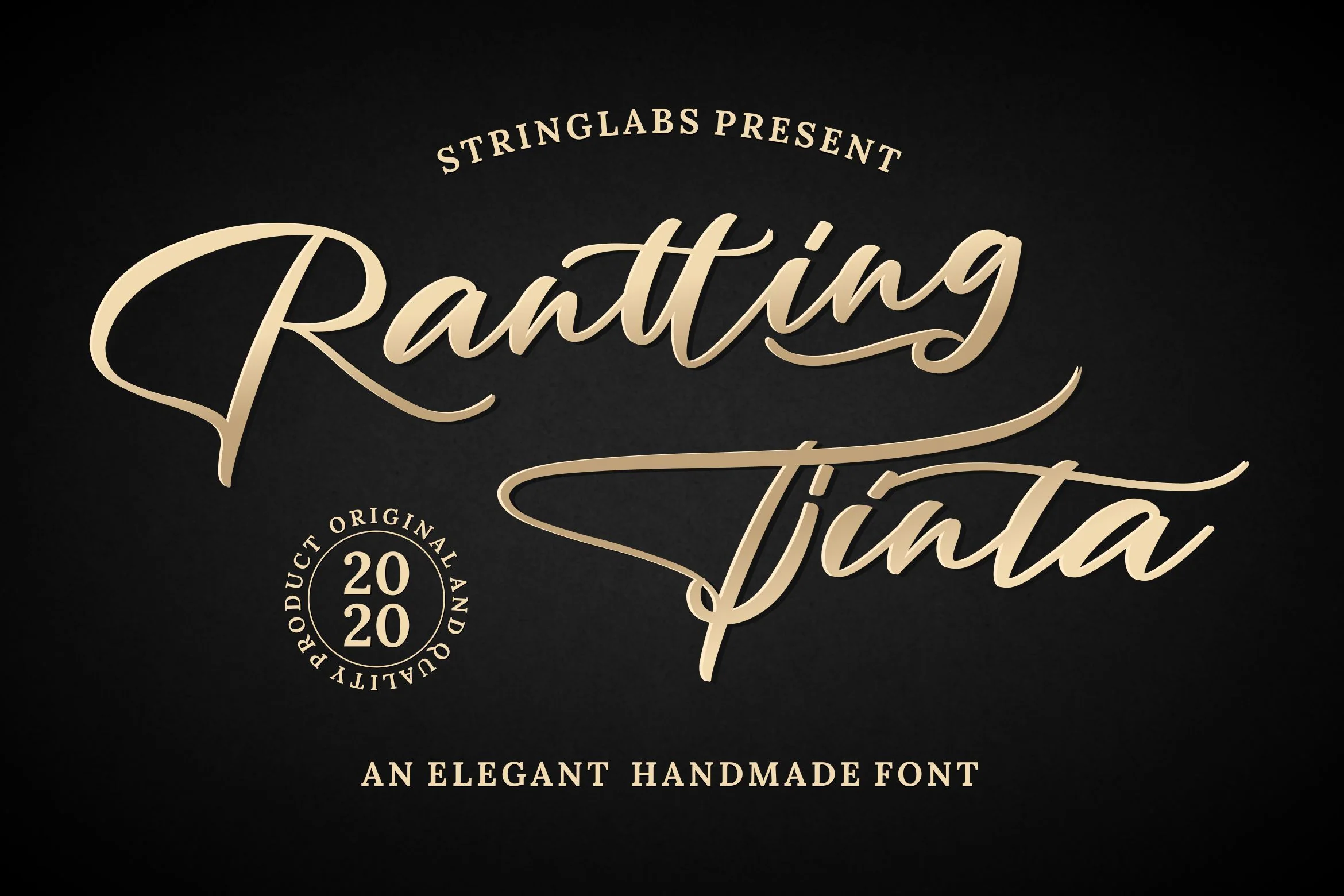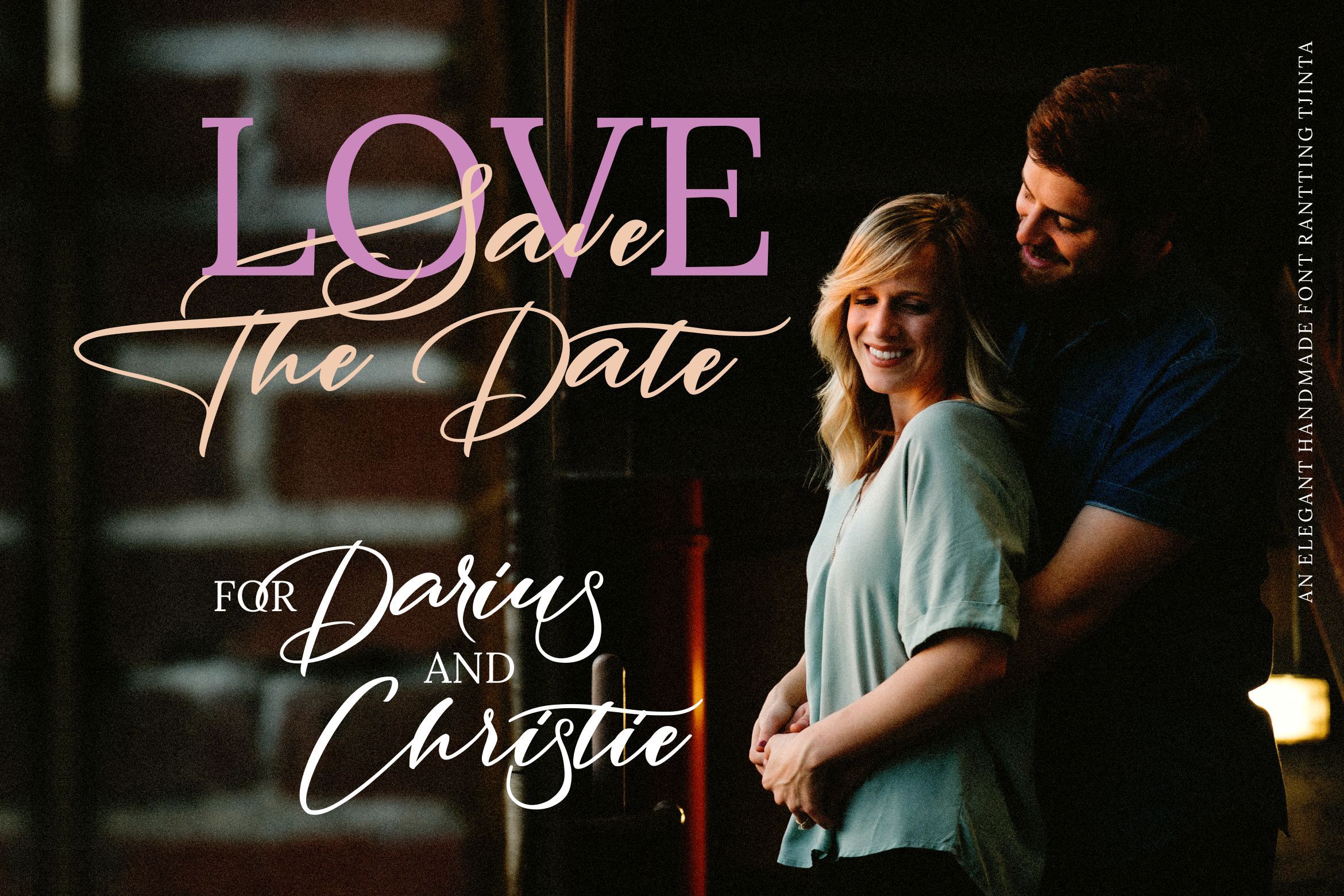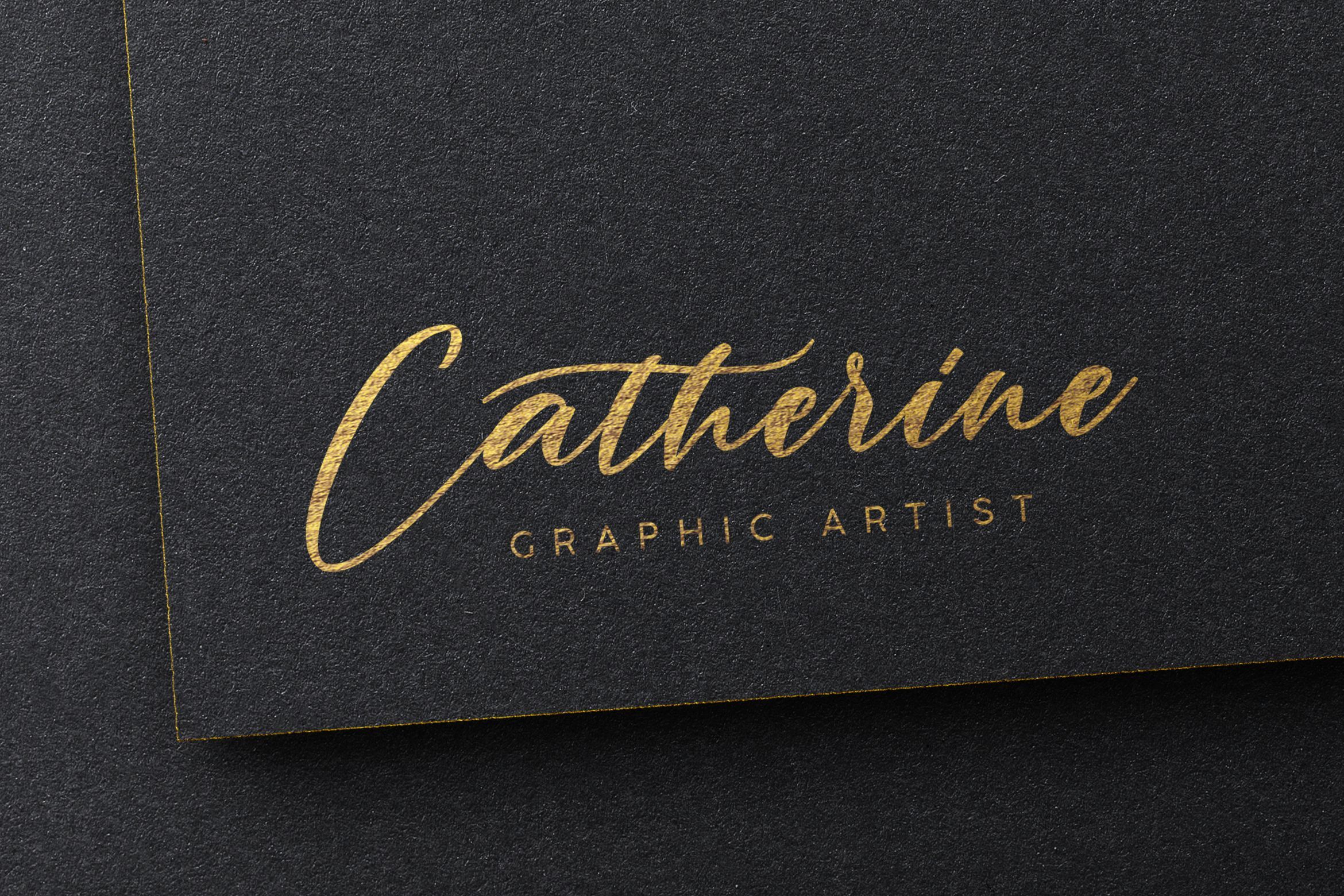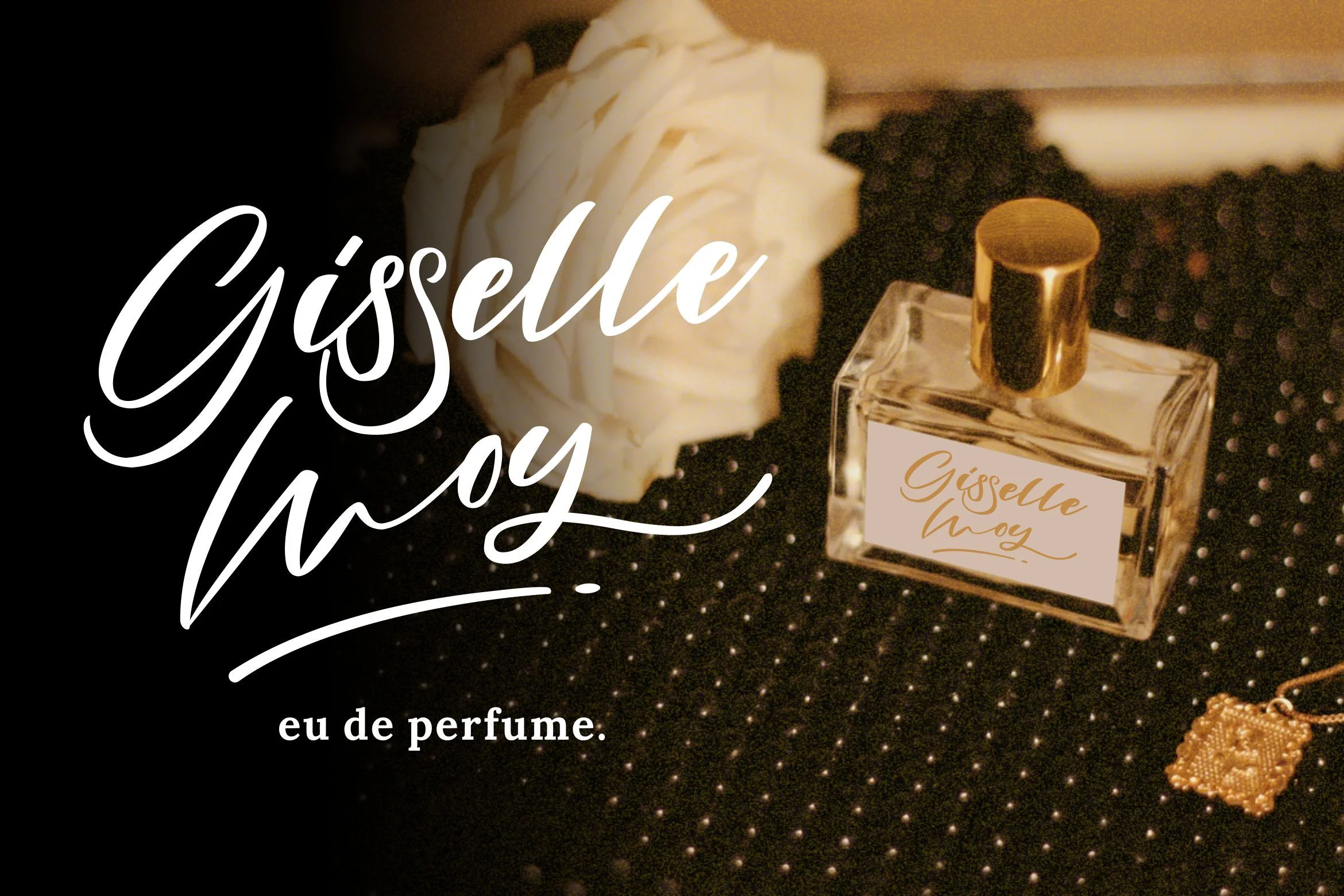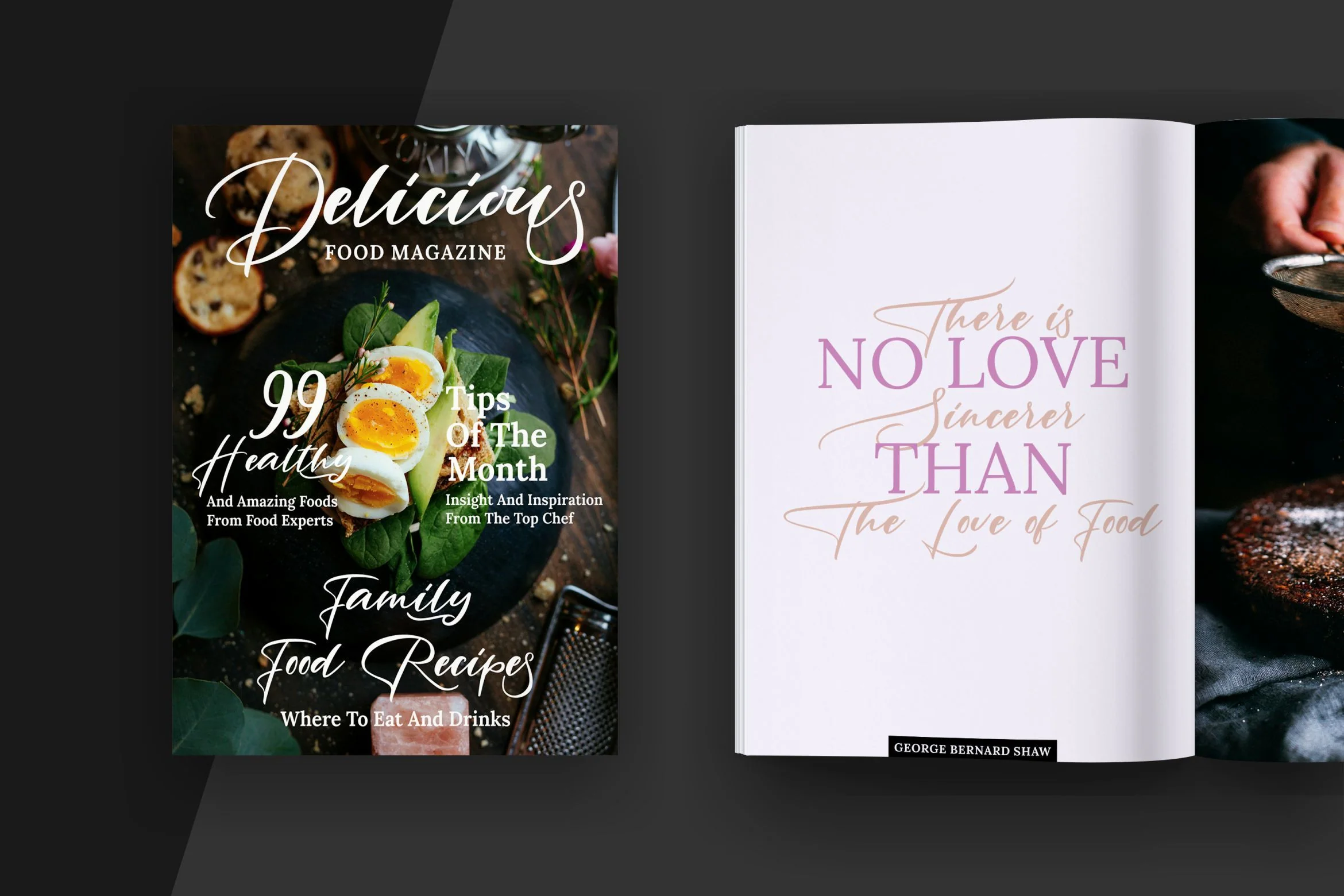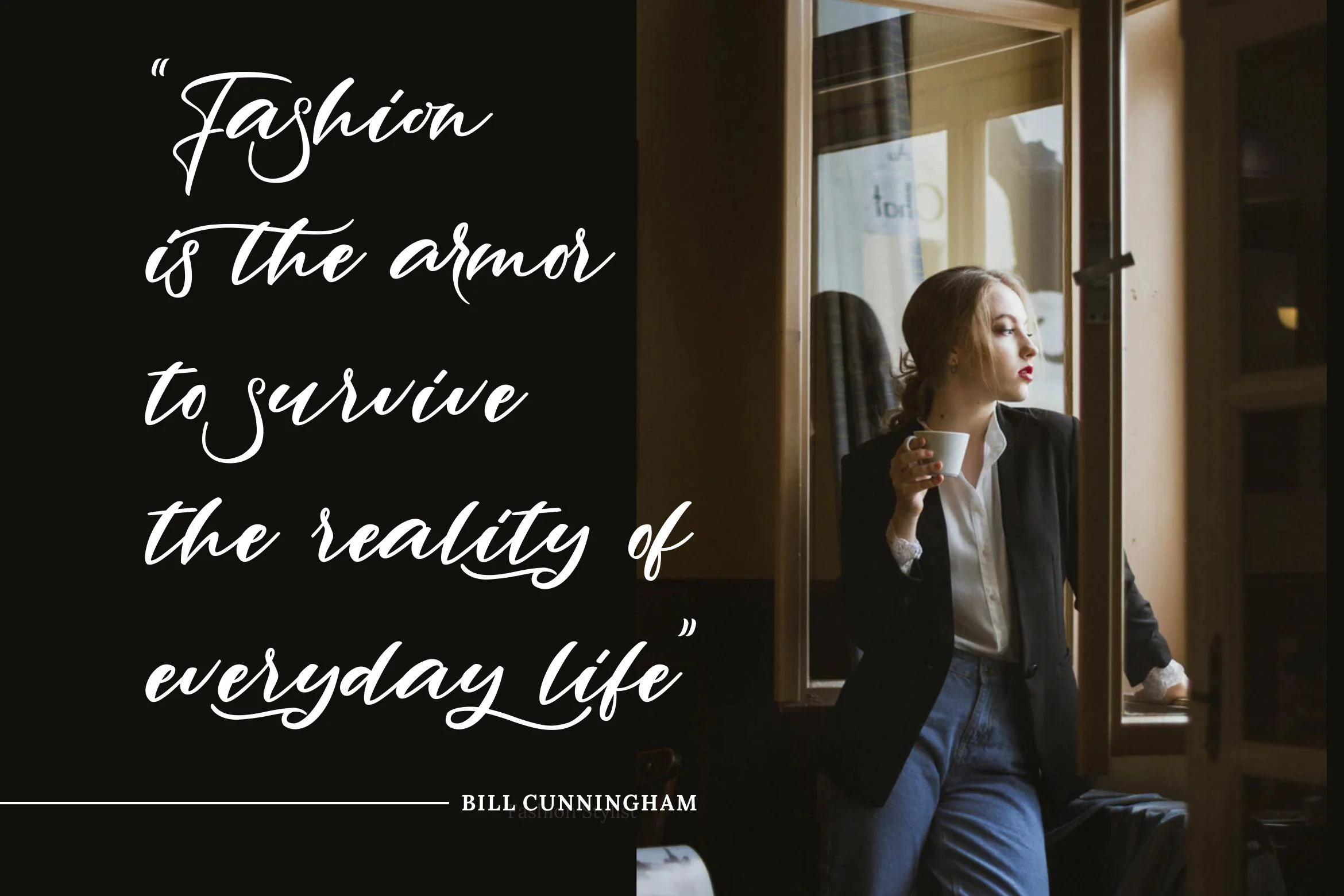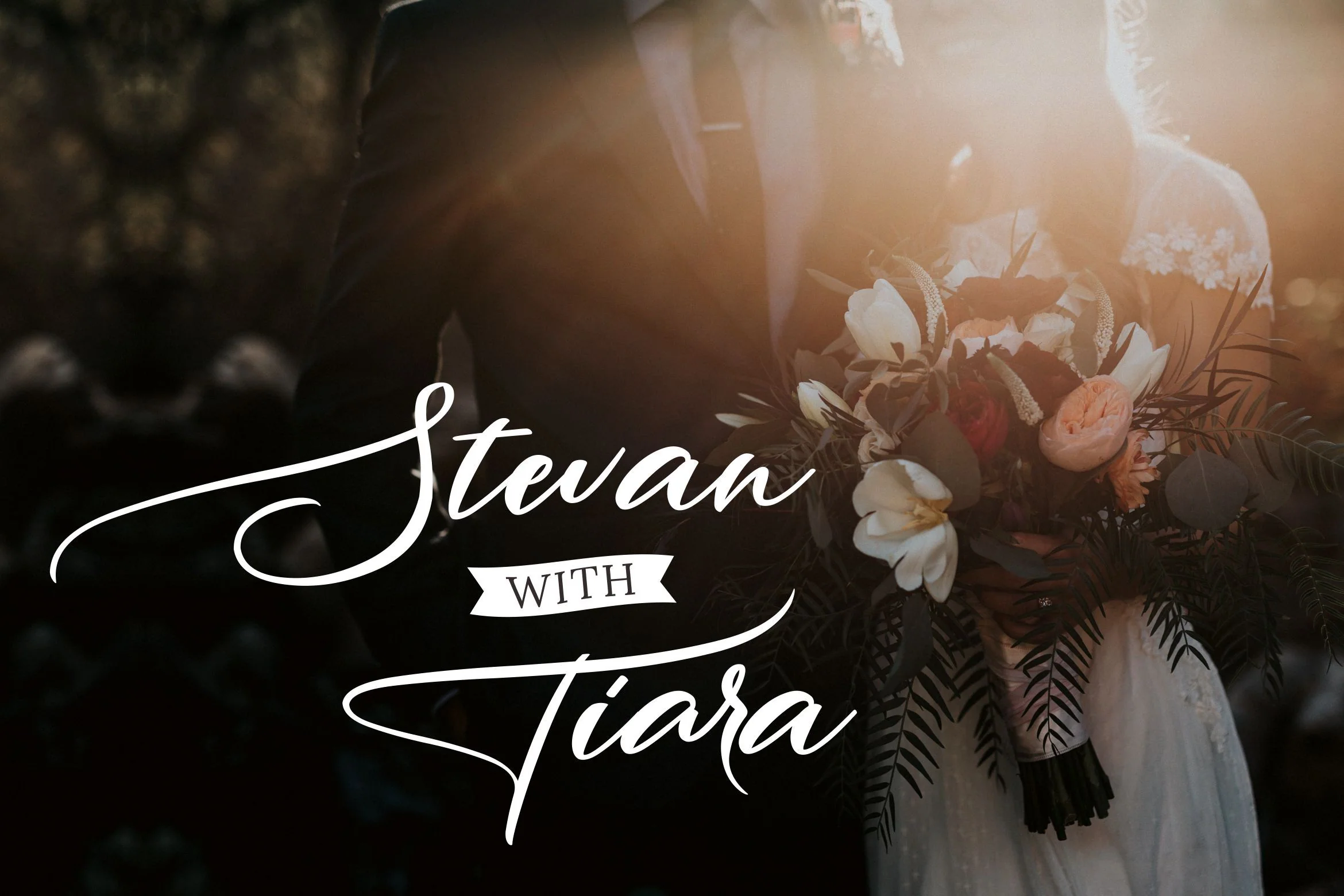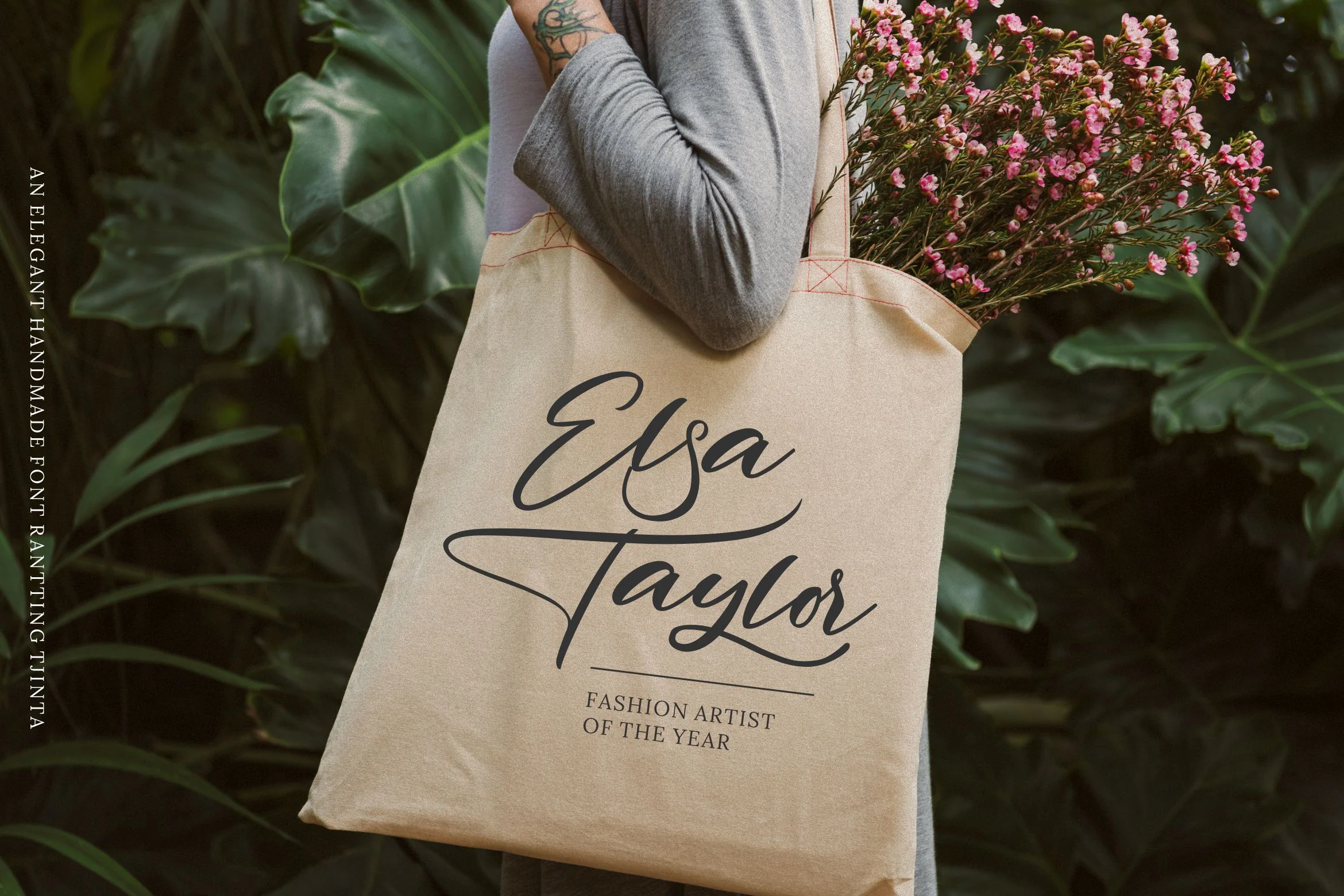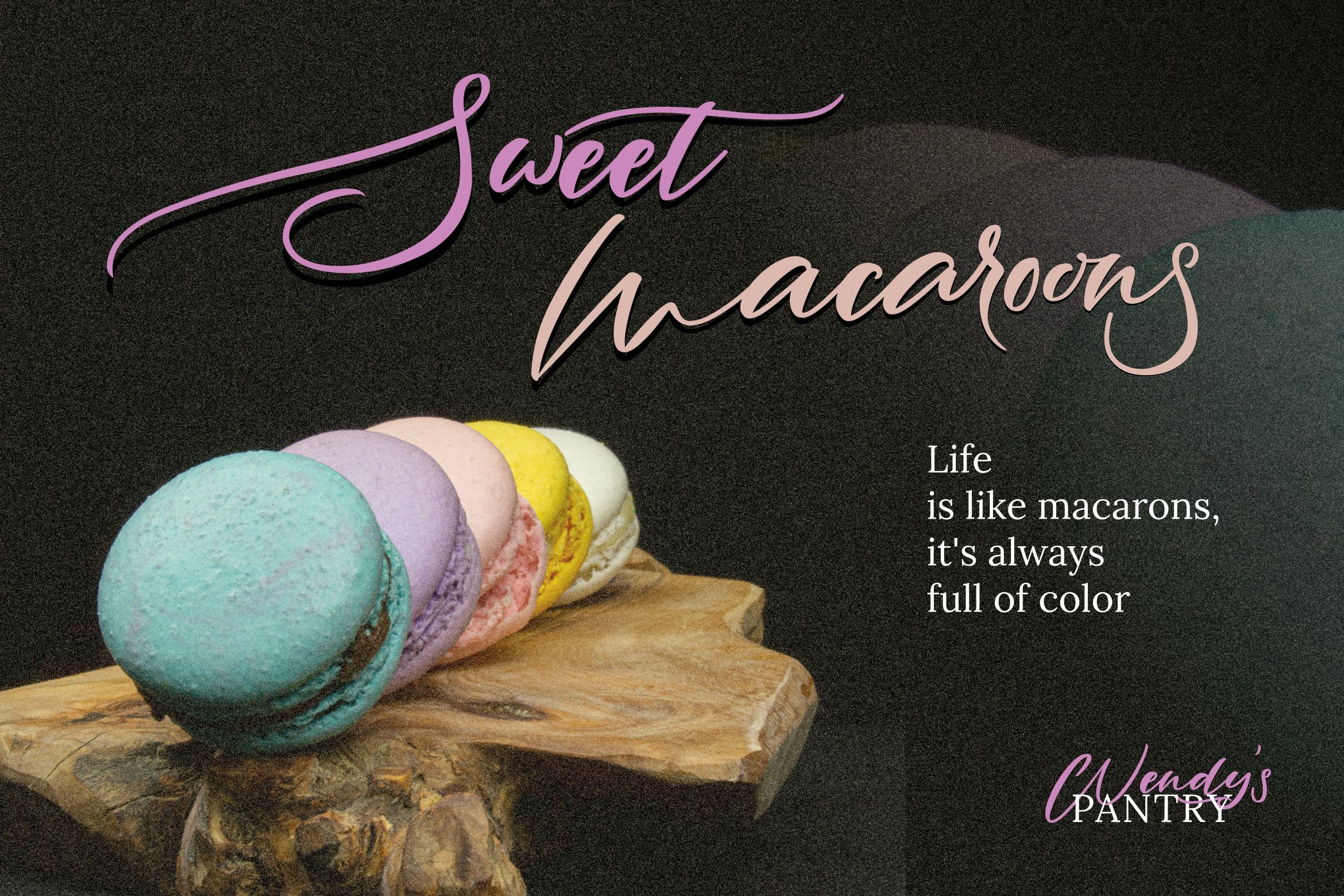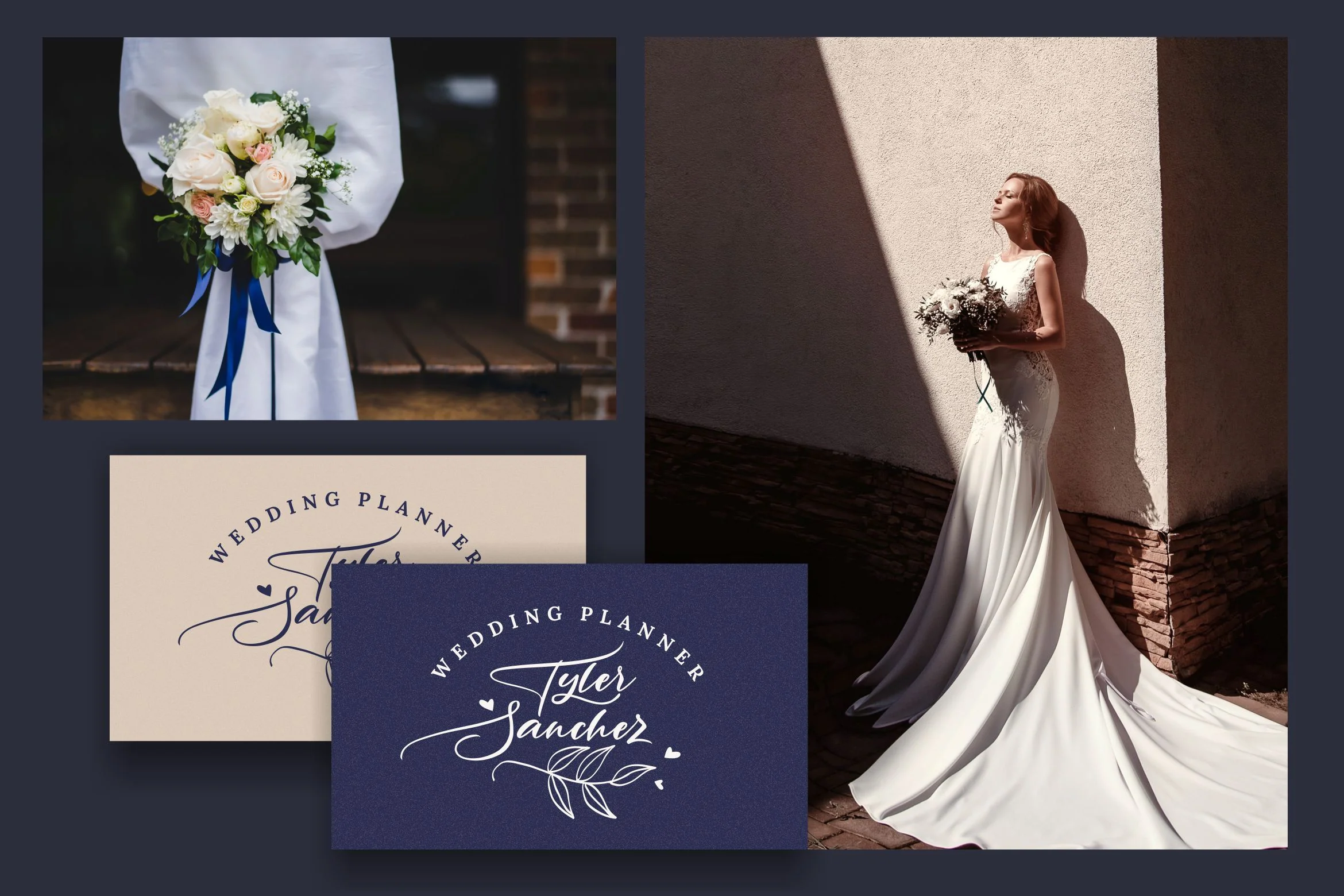
Rantting Tjinta - Stylish Script Font
Introducing Rantting Tjinta - Stylish Script Font
Rantting Tjinta is a handwritten script font with stylish style. The Rantting Tjinta font made with digital brush pen strokes that making this font look authentic. This font is perfect for fashion brand, wedding invitation, business card, logo brand, signature, and then calligraphy.
- Stylistic Set 1
- Stylistic Set 2
Introducing Rantting Tjinta - Stylish Script Font
Rantting Tjinta is a handwritten script font with stylish style. The Rantting Tjinta font made with digital brush pen strokes that making this font look authentic. This font is perfect for fashion brand, wedding invitation, business card, logo brand, signature, and then calligraphy.
- Stylistic Set 1
- Stylistic Set 2